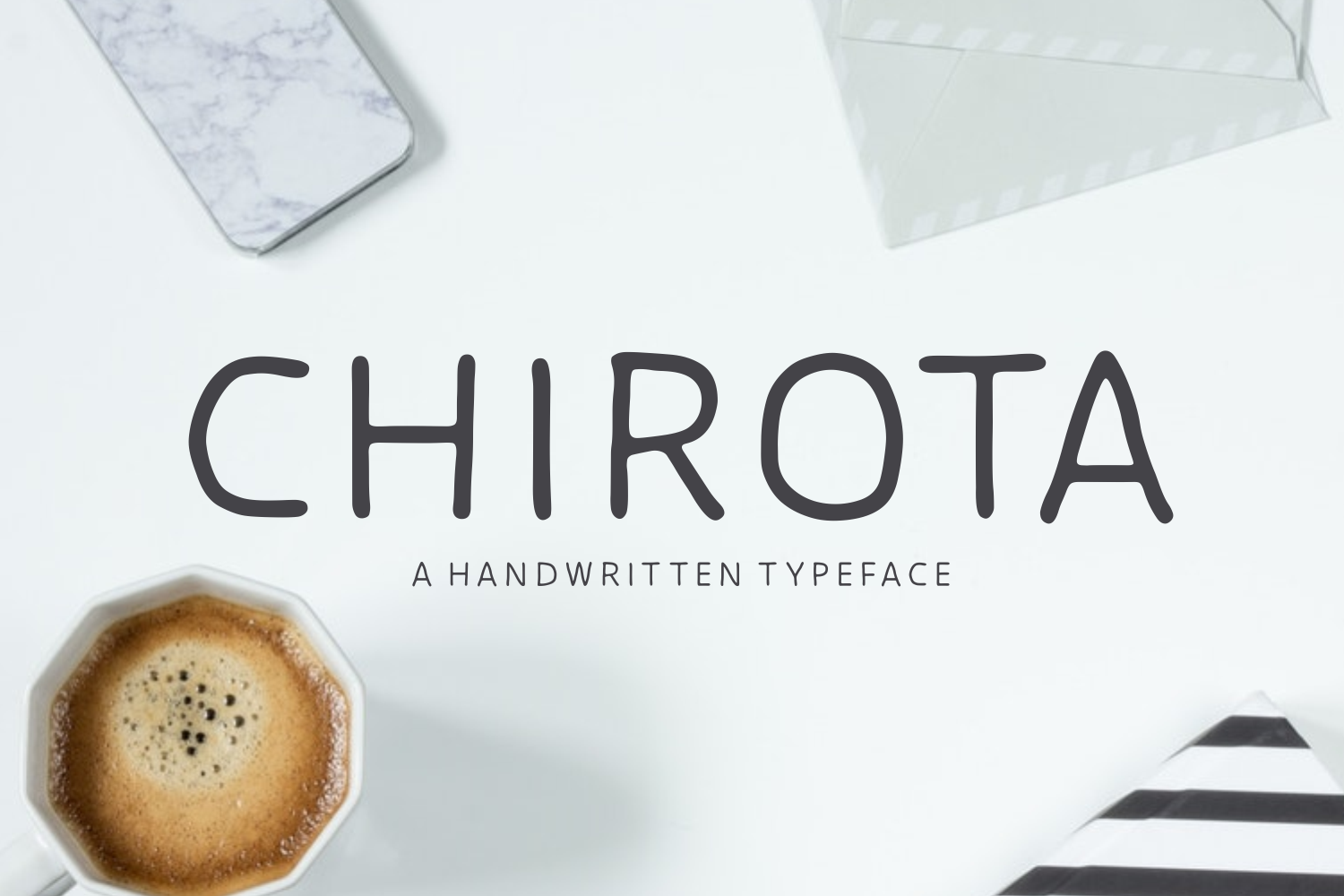
Chirota Font
About Chirota Font
Chirota is a handwritten font. The clean lines have a wobbly look & feel which gives it a playful touch.
It’s a typeface that is very easy to read.